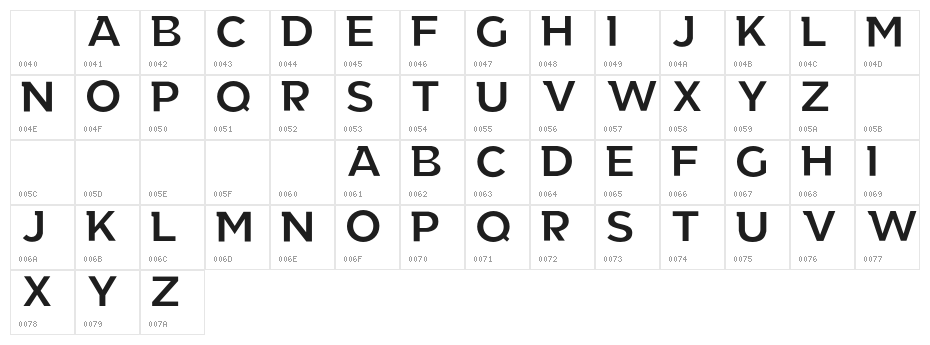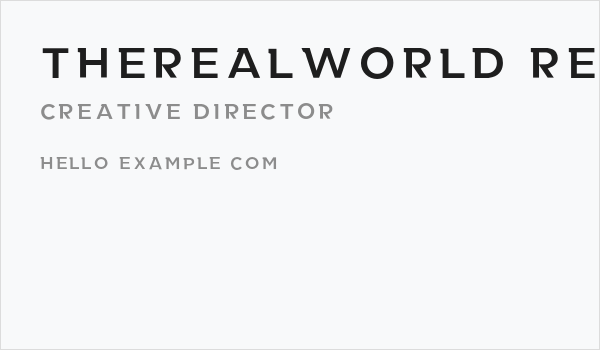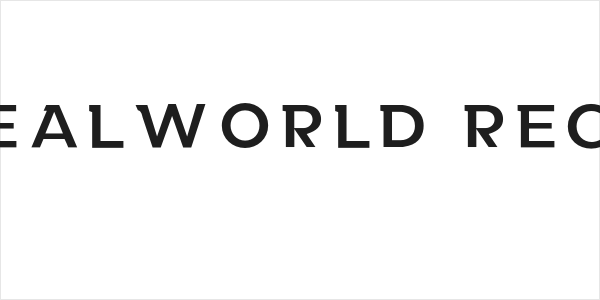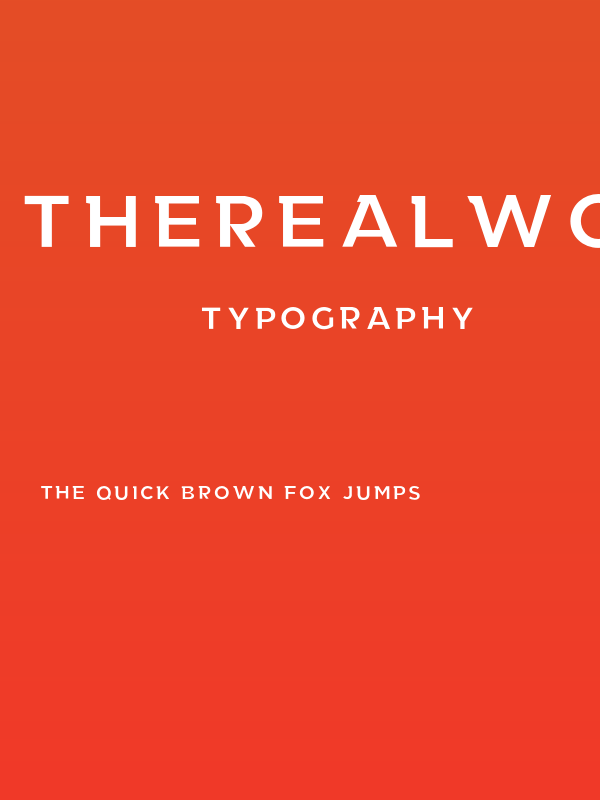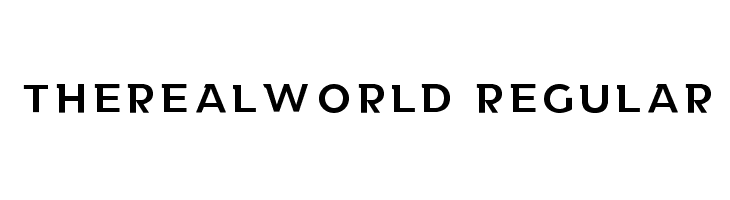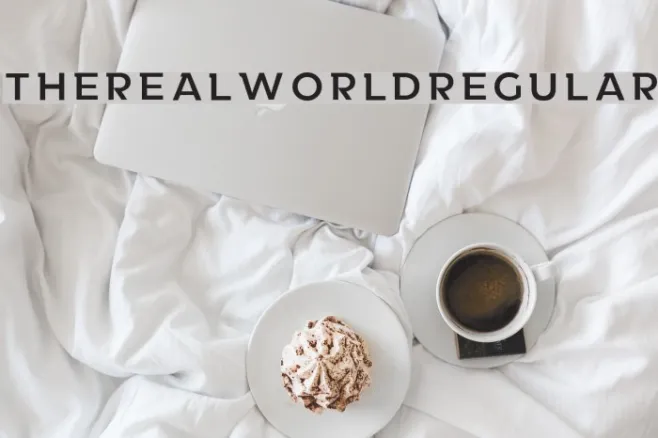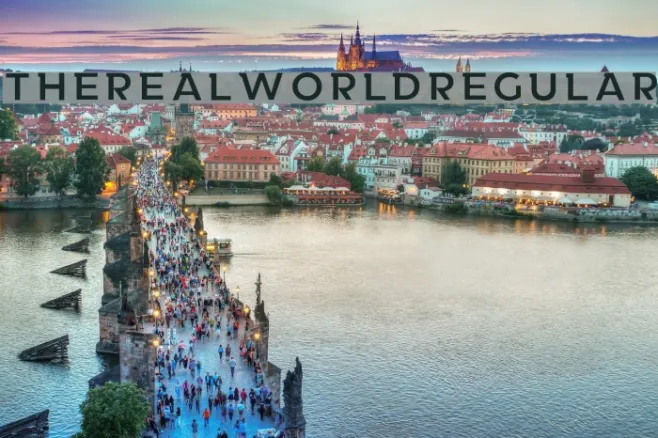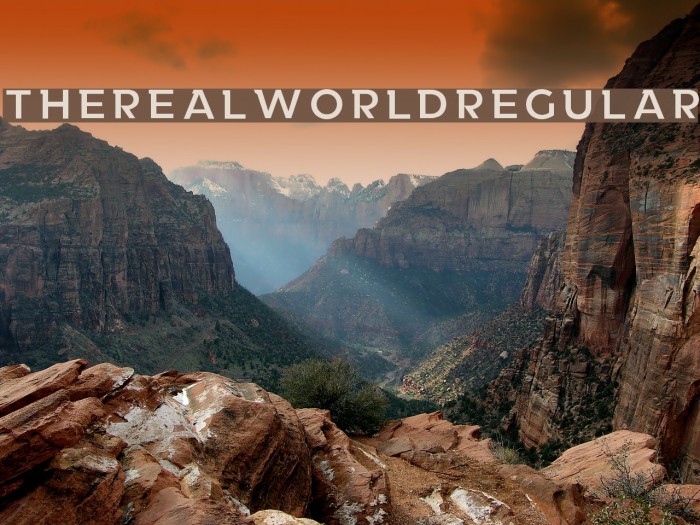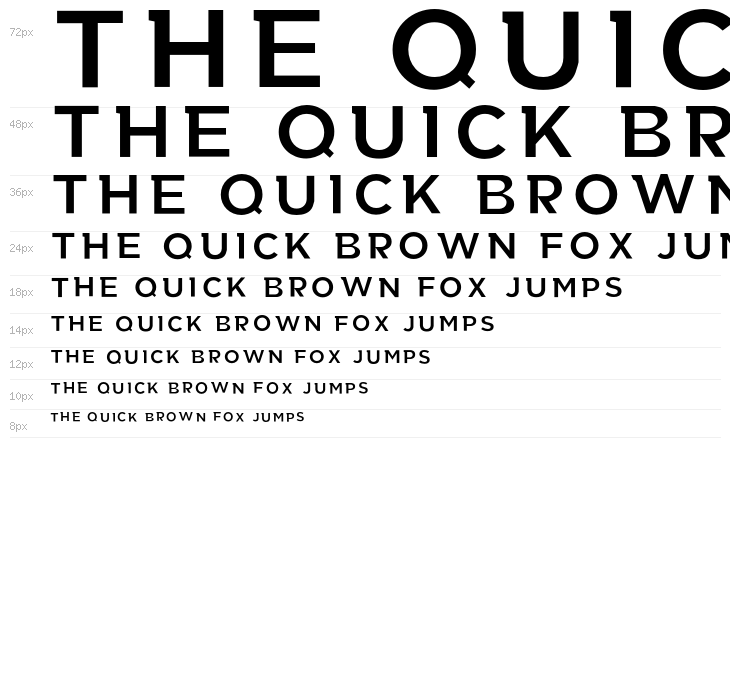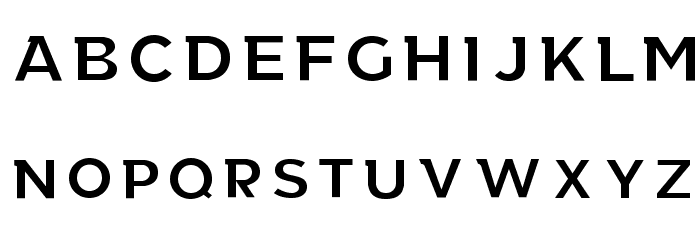
TheRealWorld-Regular Font
TheRealWorld-Regular Description
This font features a clean and modern sans-serif style, characterized by its uniform stroke width and geometric letterforms. The uppercase and lowercase letters are well-proportioned, offering a balanced and harmonious appearance. The numerals are clear and easily distinguishable, making them suitable for various applications. Special characters are designed with the same attention to detail, ensuring consistency across all glyphs. The overall design is minimalistic, with a focus on readability and versatility, making it ideal for both digital and print media.
| Proposed Projects | Ideal for branding, web design, advertising, and editorial layouts due to its clarity and modern aesthetic. |